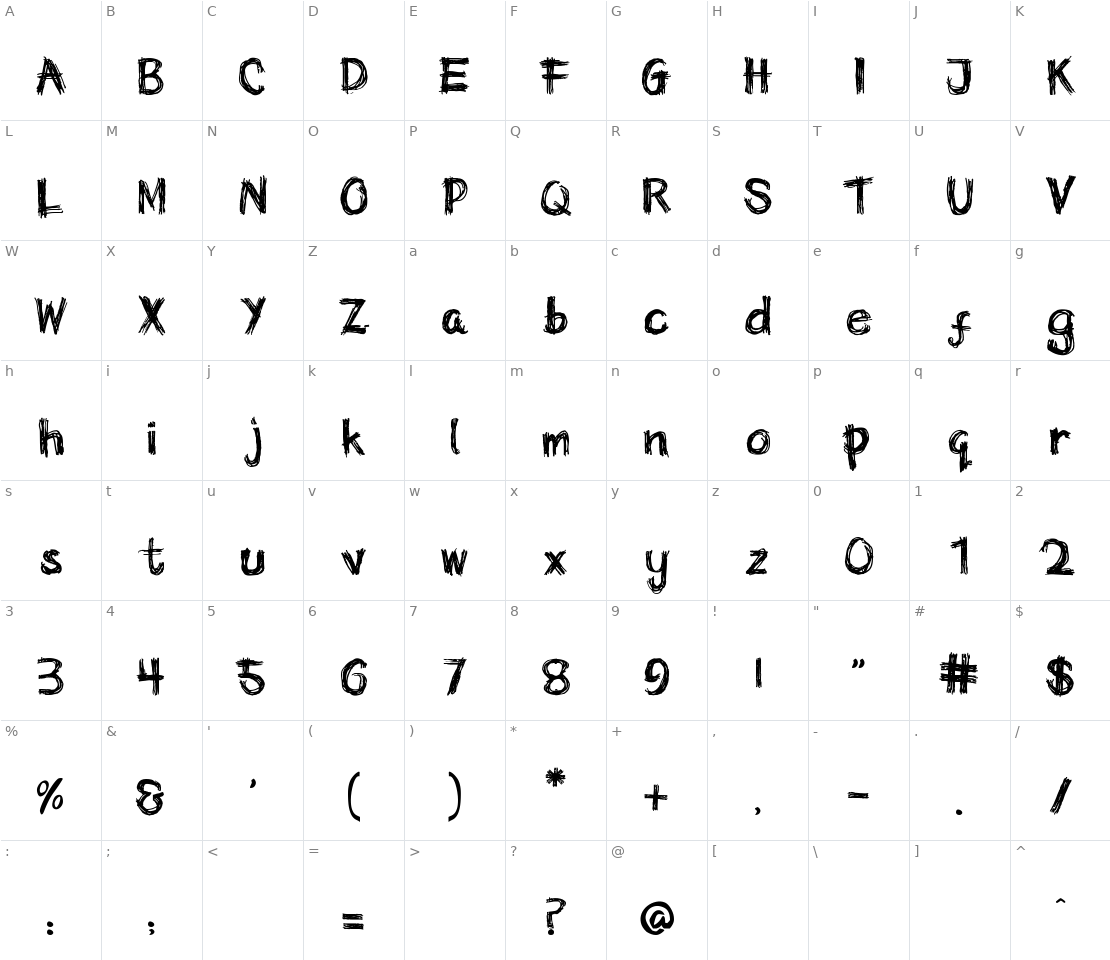
Niere
by Leonardo Sigalingging
Niere is a bold, textured display face by Leonardo Sigalingging with a raw, scratchy quality that feels like ink dragged across rough paper. The letterforms are heavy but visibly worn, with gritty, uneven edges that push it firmly into grunge territory. Best at large sizes for headlines, posters, and dark-themed branding where the roughness is the whole point.